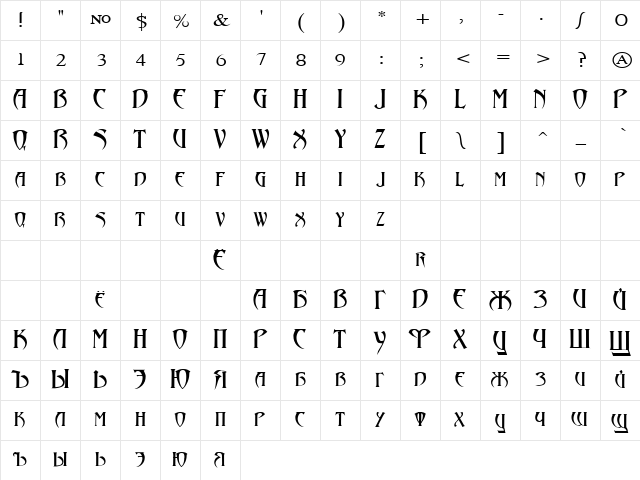
Complete Abaddon Cyr Regular glyph index. Displaying only characters natively supported by Abaddon Cyr Regular font.
Abaddon Cyr is a composed and adaptable typeface that performs quietly and consistently across a wide range of design contexts.